Anatomy
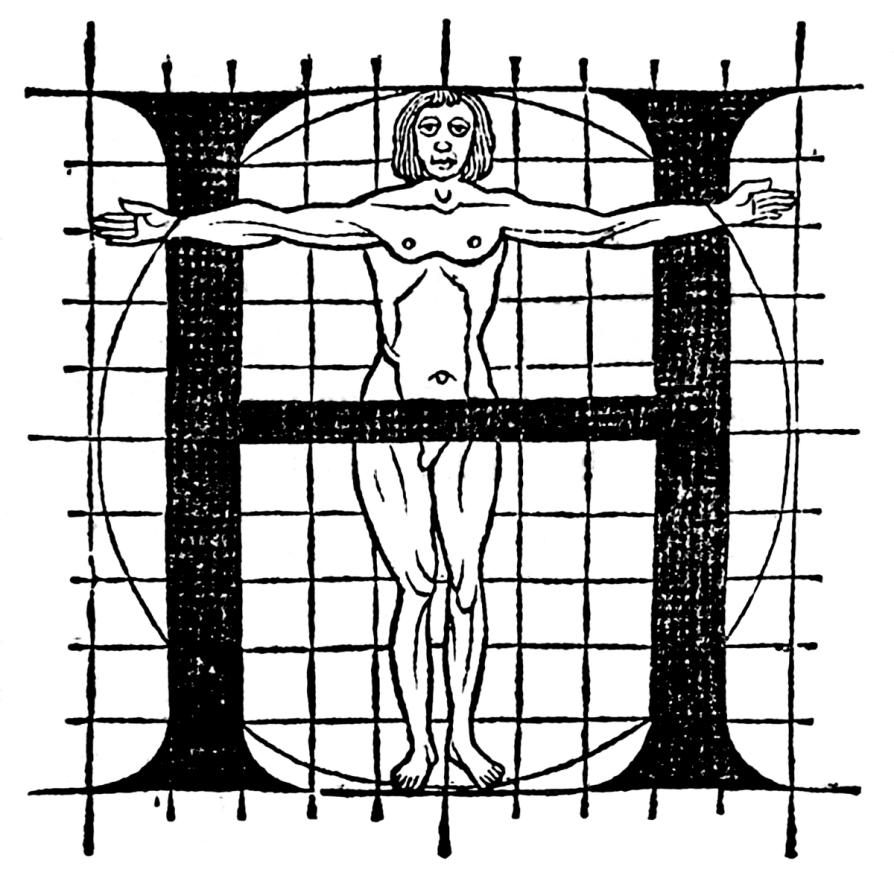
Illustration: Le Champ Fleury, Geoffroy Tory, 1529. Source: Bibliothèque nationale de France .
To name and describe parts of letters and other characters, many terms are borrowed from architecture (e.g., arch of an n) or from human and animal anatomy (e.g. leg of an R), which is why we speak of “type design anatomy.”